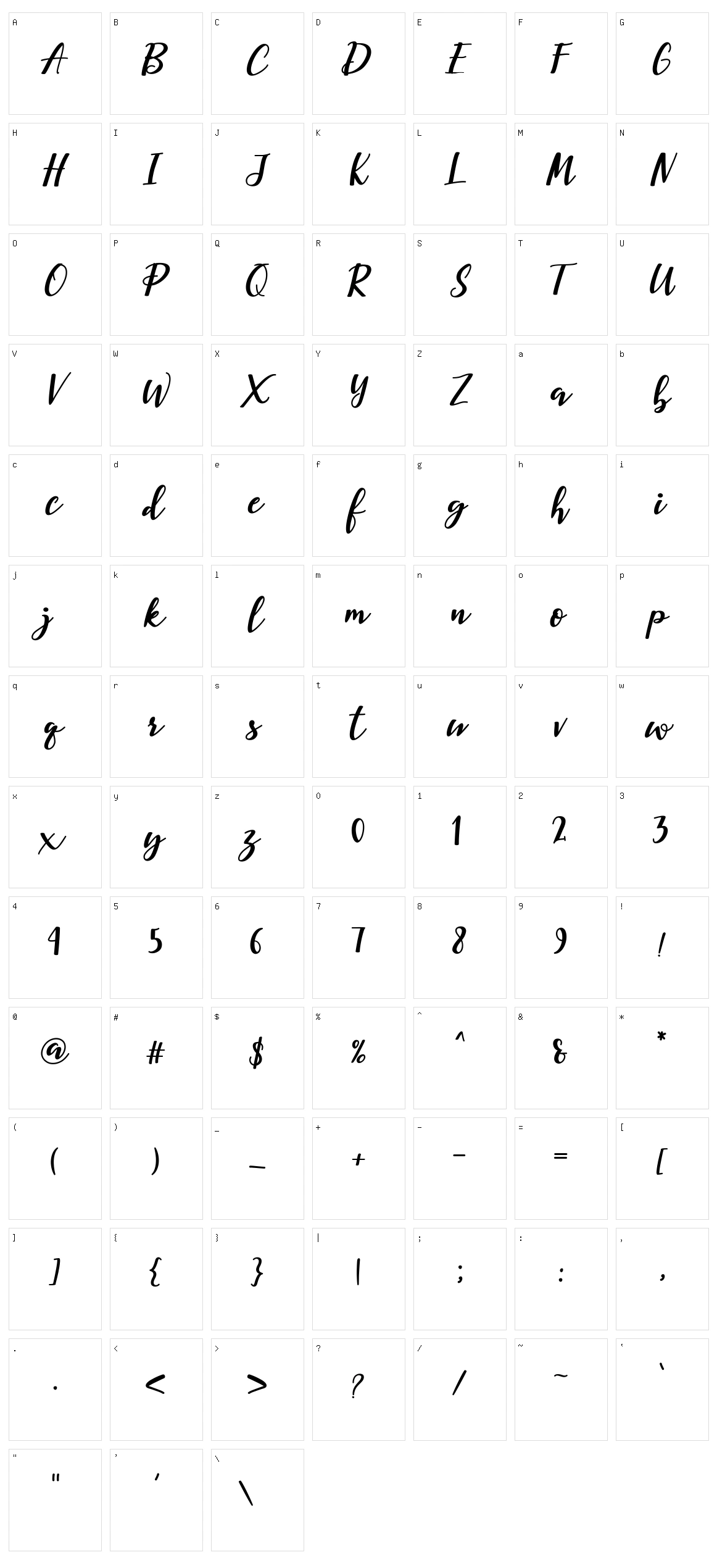
The free font Corolla is carefully designed by belovestudio, showcasing a thoughtful balance of creativity and usability and falls under the Script font style. When you download the ZIP file, it contains only 79.36 KB of font files, making it lightweight and quick to download. Please review the license details below to understand permitted usage and distribution rights. If license information is not available, we recommend using this font for personal projects only or contacting the author directly for commercial usage permissions.